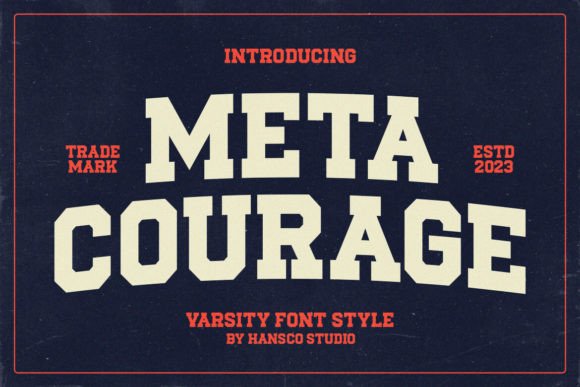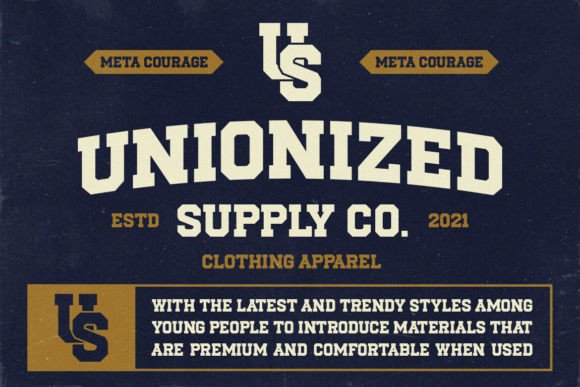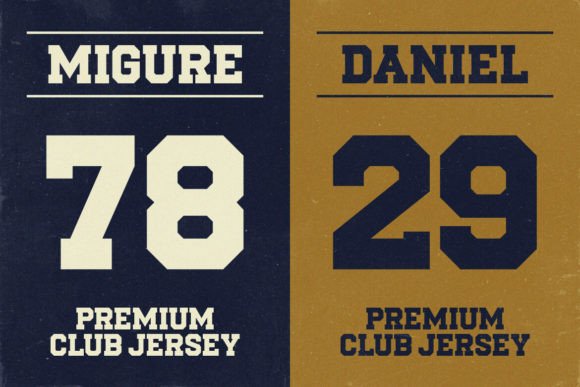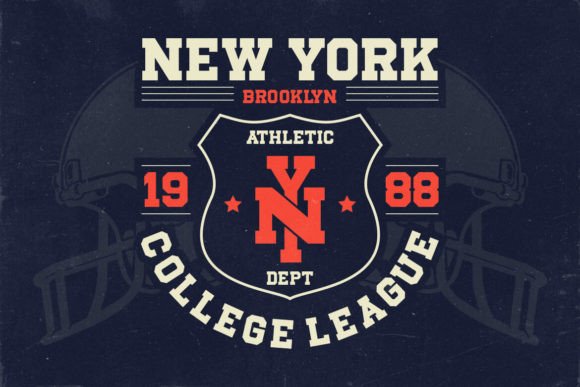
Meta Courage Font: A Bold Display Font for Sporty Designs & Cricut
About the Meta Courage Font
We are excited to introduce Meta Courage Font, a must-have typeface for any serious designer. Meta Courage is a Varsity / Jersey display font. Elevate your design projects to new heights with our premium digital fonts tailored for Canva and Cricut users. Whether you’re designing for personal pleasure or pursuing a professional endeavor, our diverse selection of high-quality fonts will help you bring your creative visions to life. Don’t settle for ordinary fonts when you can make your designs extraordinary. Unlock your design potential and grab our digital font product today.
Meta Courage’s bold, varsity-inspired style shines in headlines, short slogans, and logos where a strong, energetic presence is desired. It’s ideal for sports-related branding, apparel designs, and posters promoting events with a youthful, spirited vibe. However, its condensed letterforms and high x-height make it unsuitable for body text or UI elements requiring high readability.
Pairing Meta Courage with a clean sans-serif like Open Sans for body copy creates a balanced contrast. For a more sophisticated feel, consider a classic serif like Garamond or a modern geometric sans-serif such as Montserrat. These pairings provide readability and visual weight to complement the font’s assertive character.
The overall personality of Meta Courage is bold, confident, and slightly rebellious. It conveys a sense of dynamism and youthful energy, making it a powerful choice for brands seeking to project strength and individuality.
Meta Courage Font Usage Examples
Meta Courage Font Example